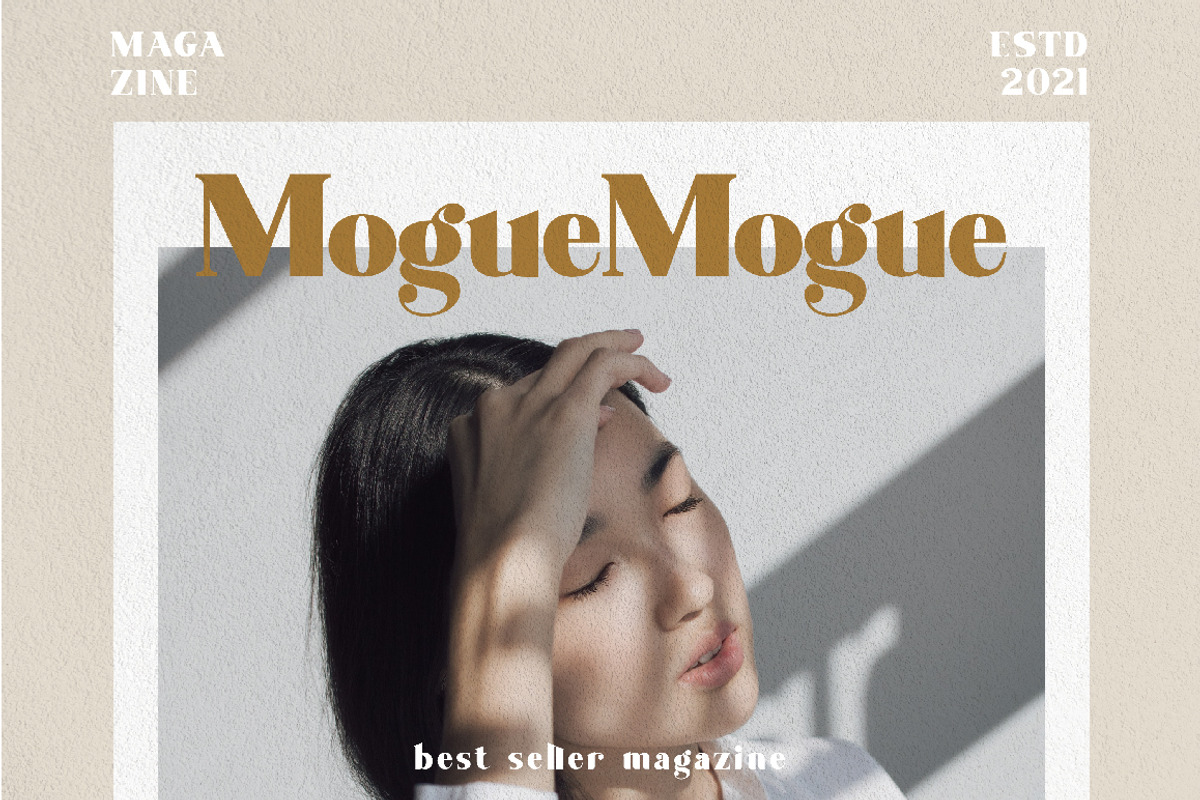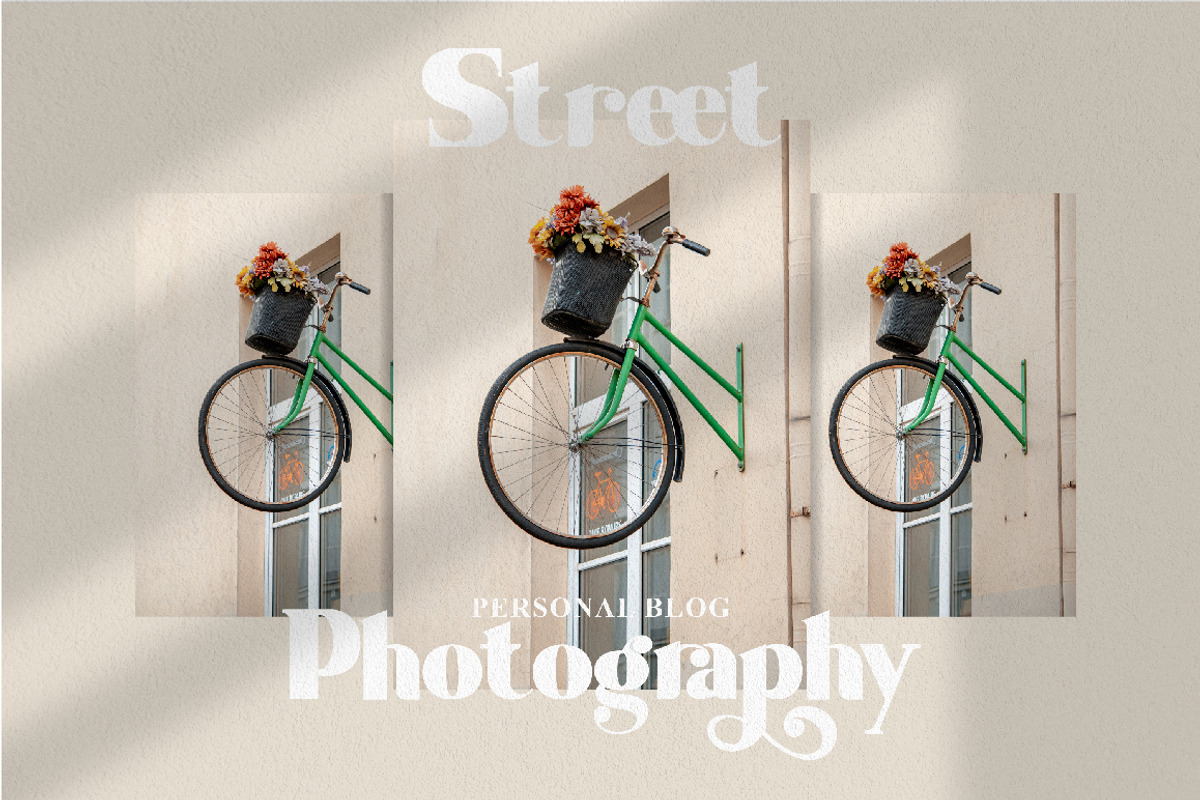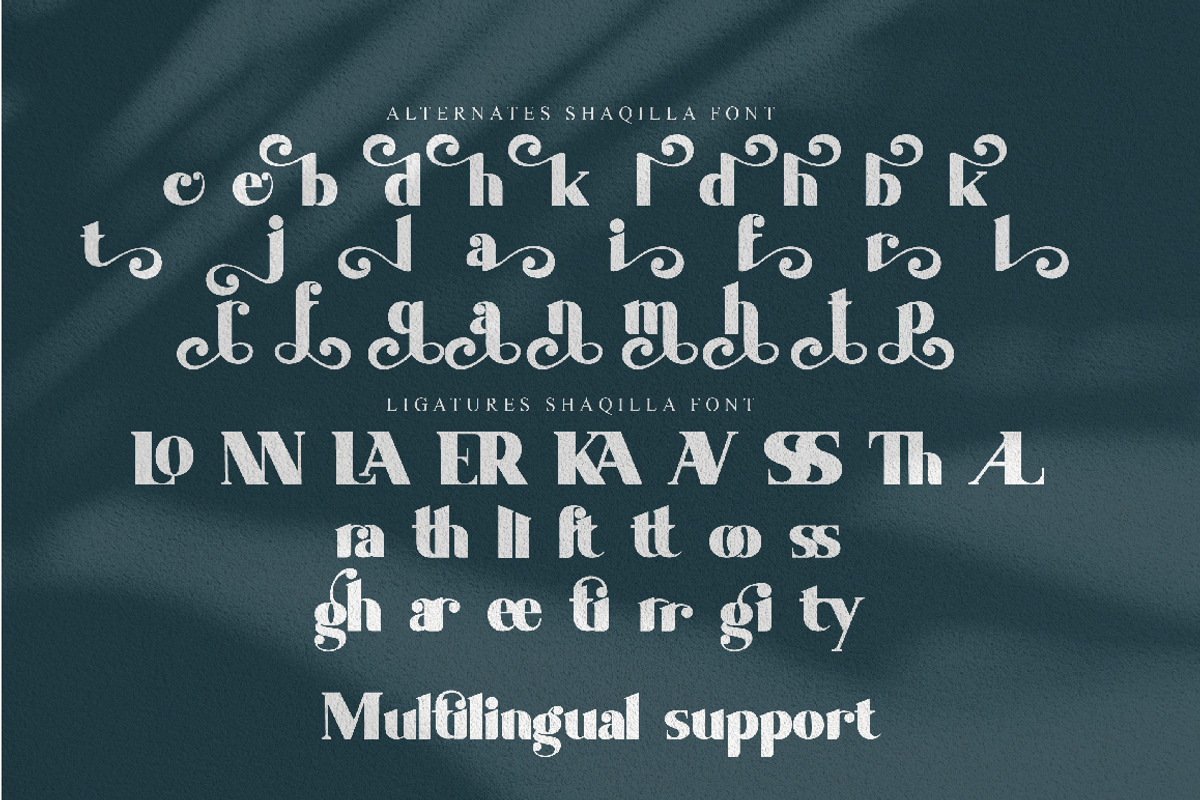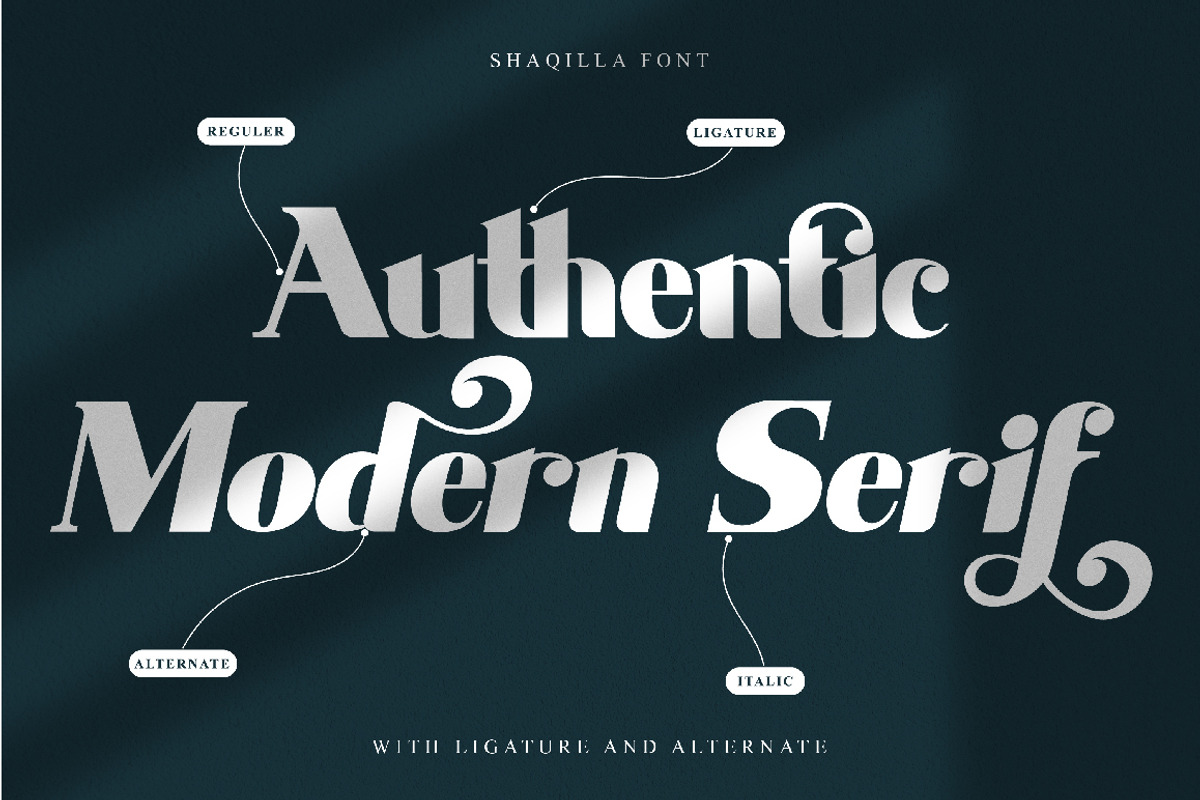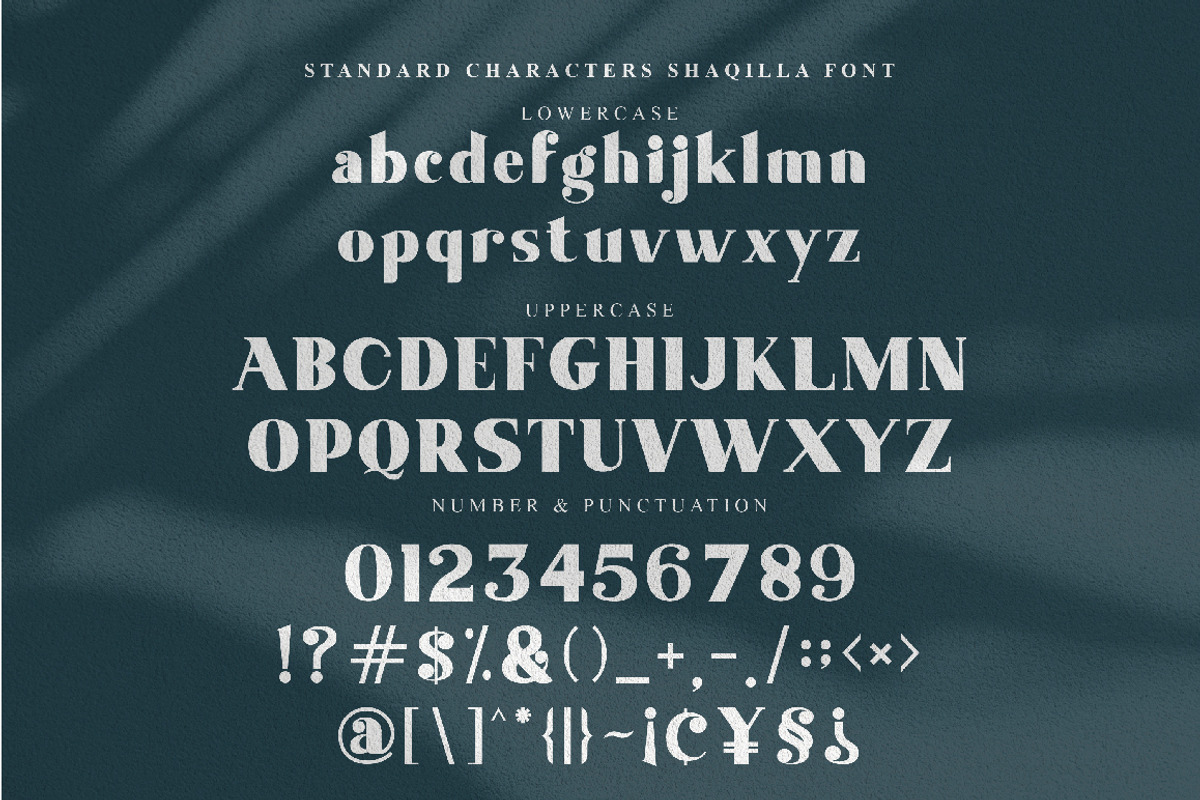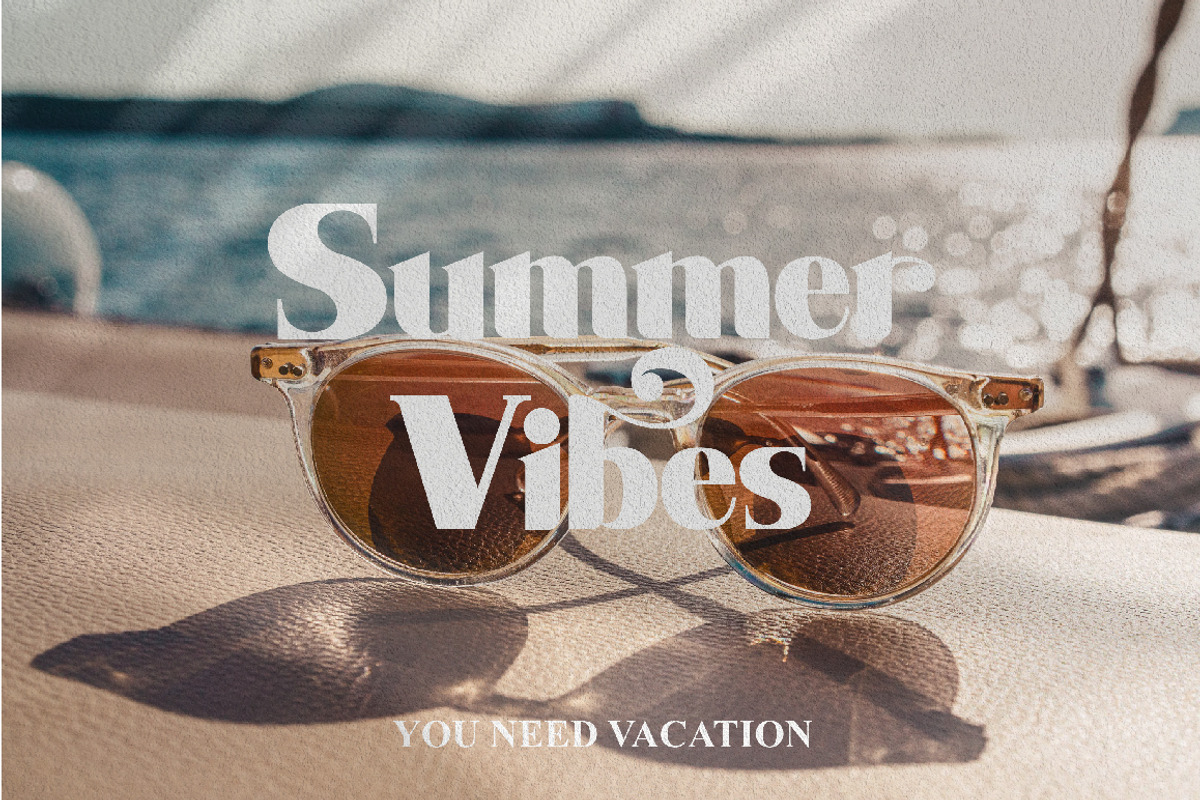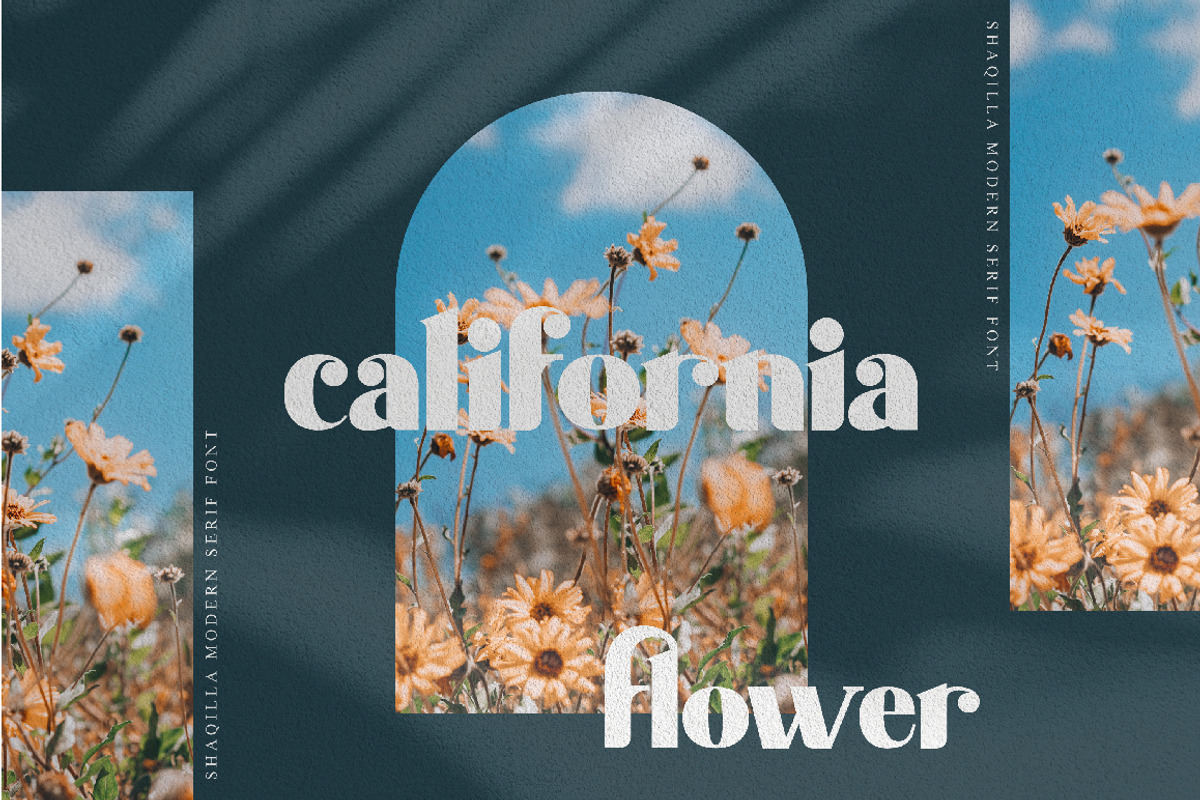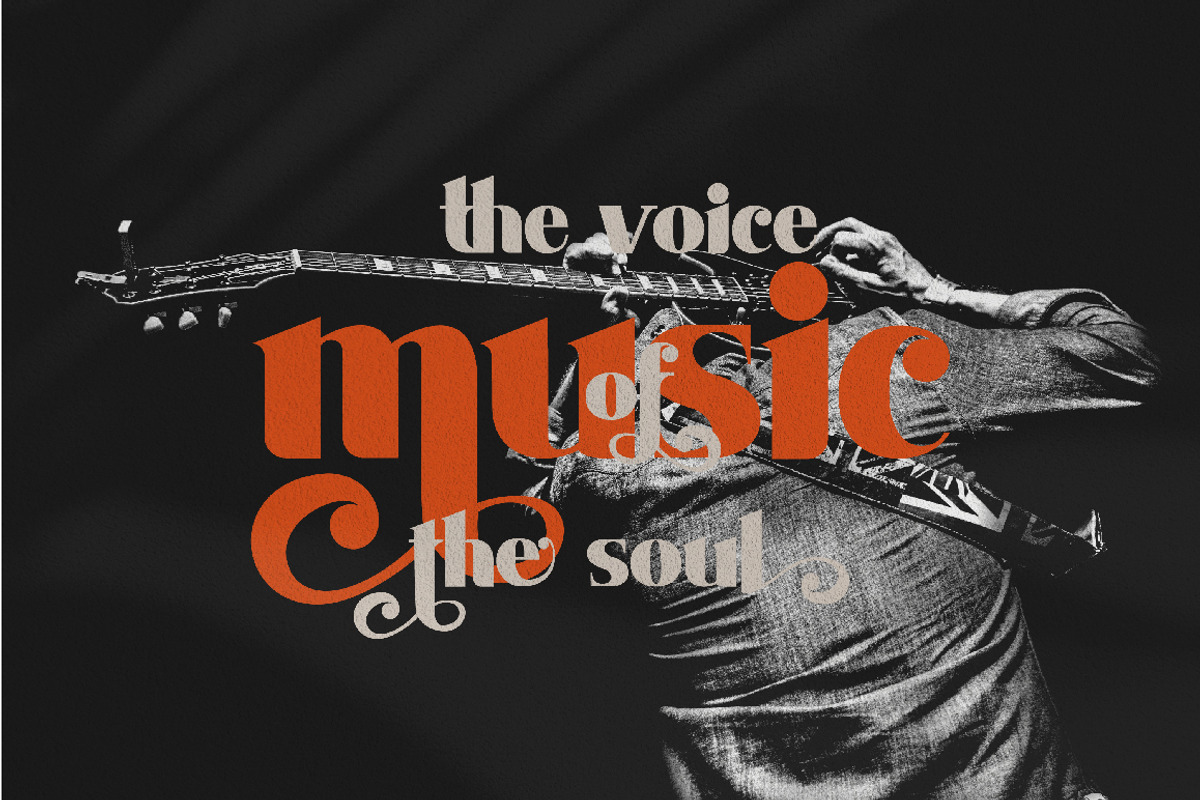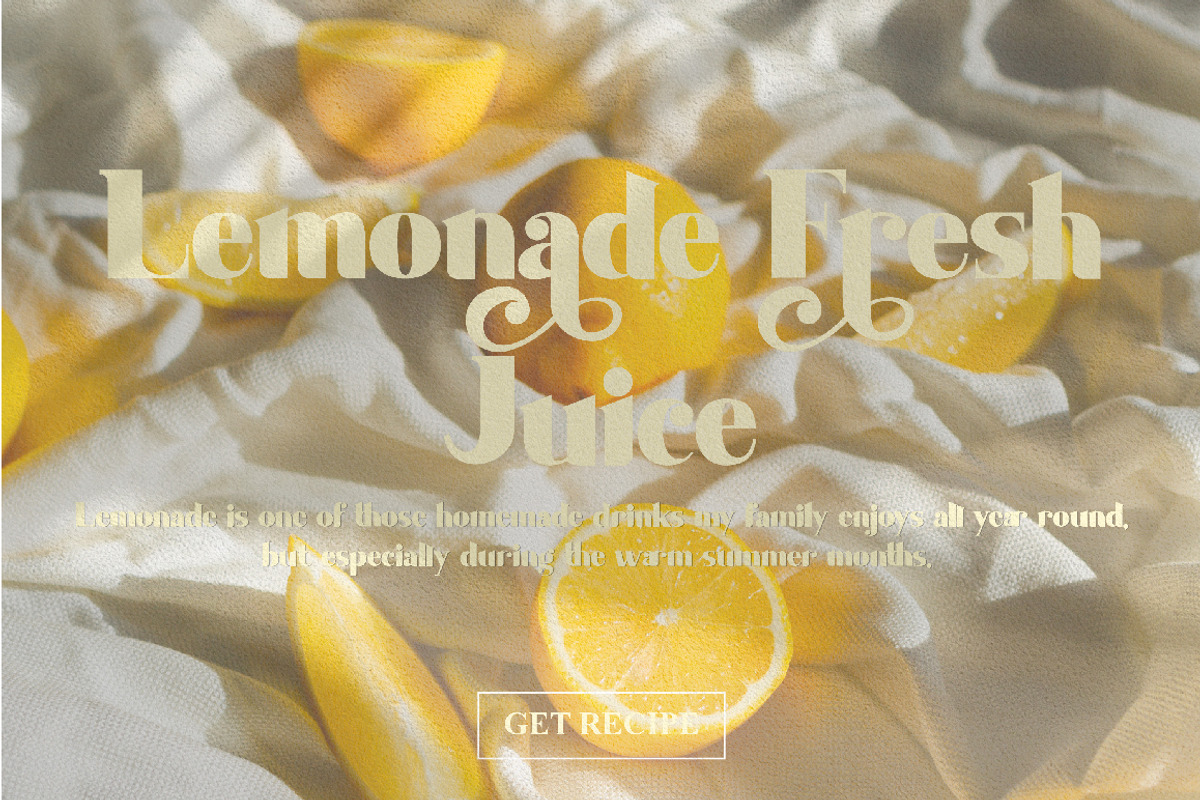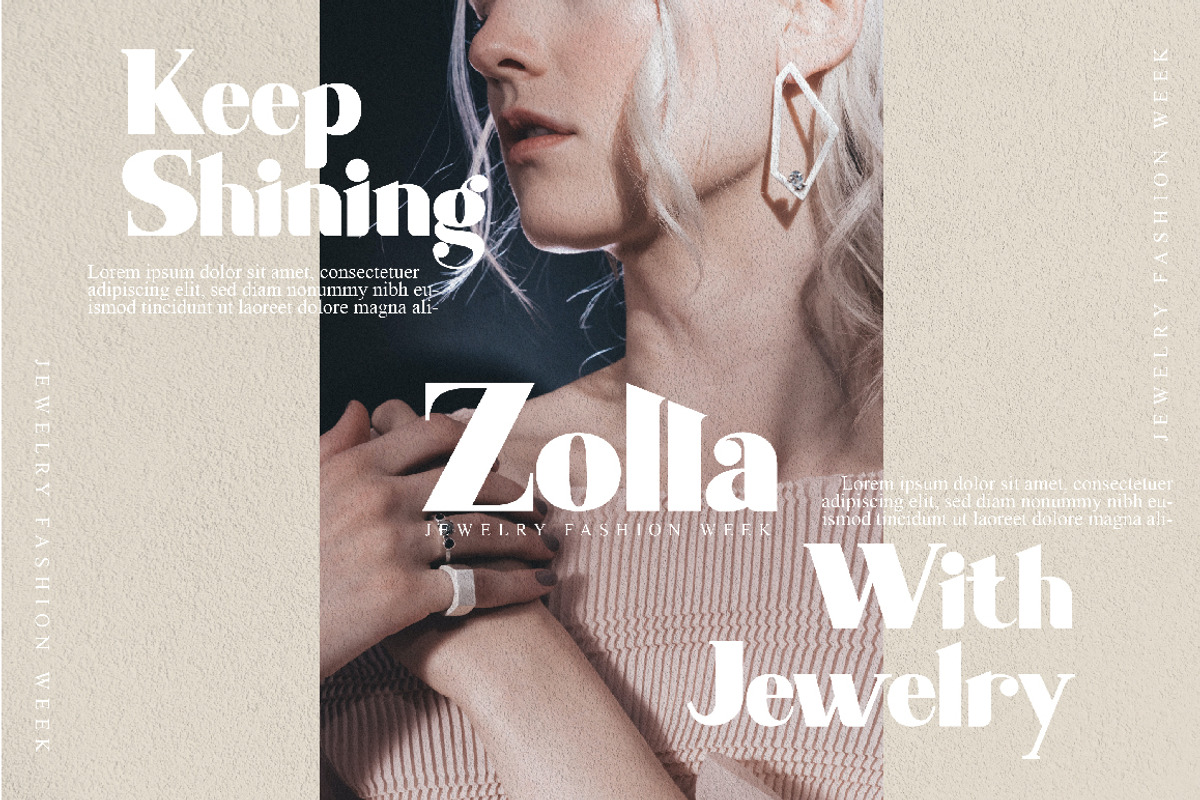
Shaqilla - modern serif
Shaqilla is a stylish modern serif font with 2 styles: Regular, Italic and includes a full set of uppercase and lowercase letters, multilingual symbols, numerals, punctuation, alternates, swash, and ligatures. The font is perfect for branding, wedding invites, and cards, Christmas card, branding, logos, product packaging, invitation, quotes, t-shirt, label posters, this is perfect for branding, logos, invitation, and more. Shaqilla Features :
- Multilanguage